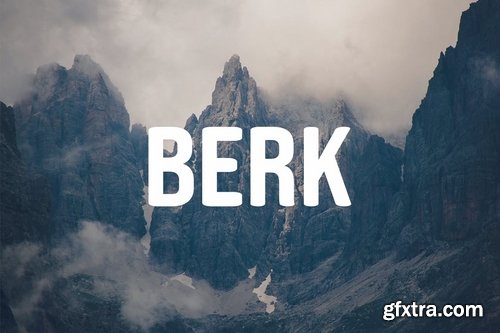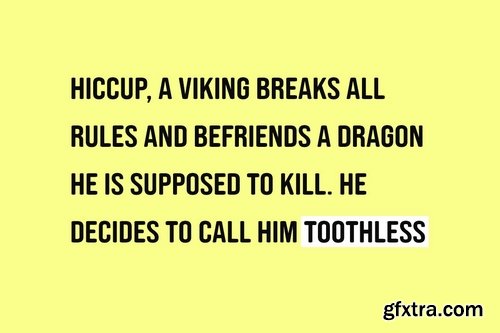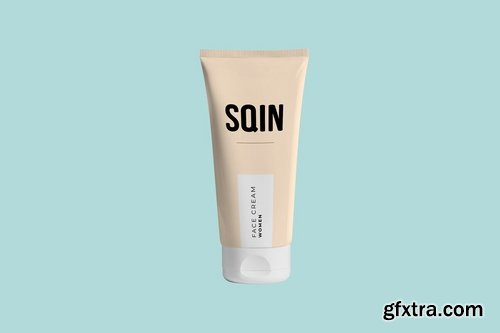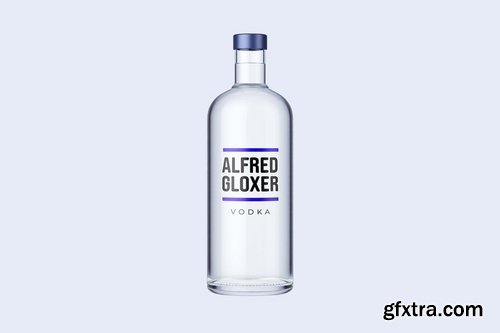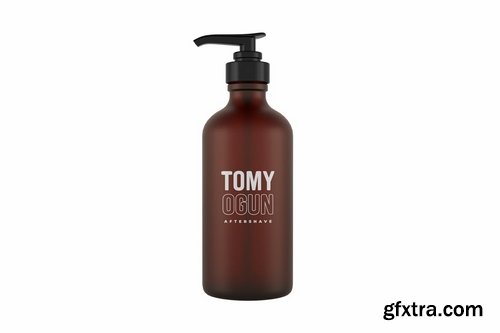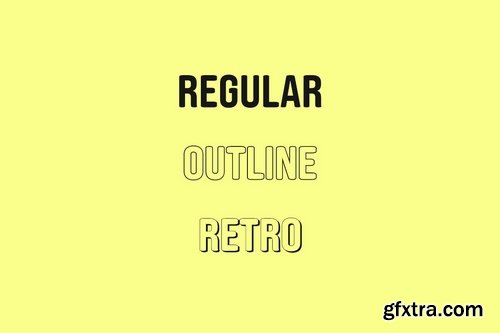
BERK is a unique and modern all-caps typeface for headlines, big text, branding, logotypes & display usage. This font is also perfect for creating outstanding logos, promotional content and marketing graphics that can really grab attention from your visitors. Please see the examples shown above to get an idea about the capability of this typeface.